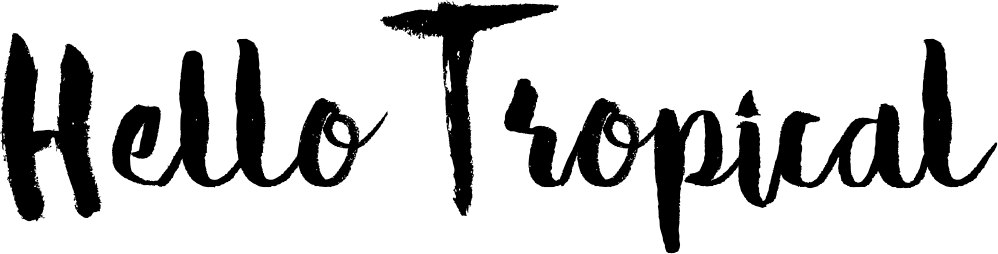
Hello Tropical Font
Looking for a tropical font to write summer event flyers with? Hello Tropical is a script font with handwritten brushstroke characters and it will give an informal and lovely look to your text. You can use it for cosmetic product introductions, cartoon and movie titles, advertisements, informal texts, and documentaries.